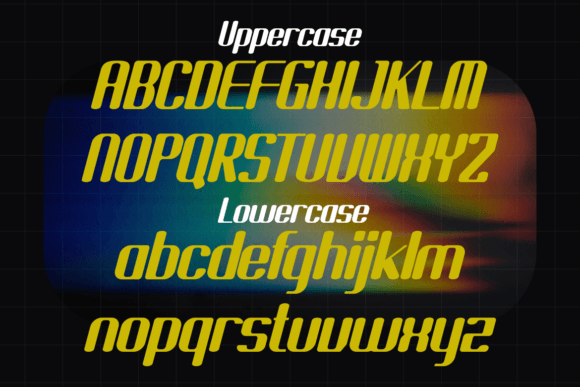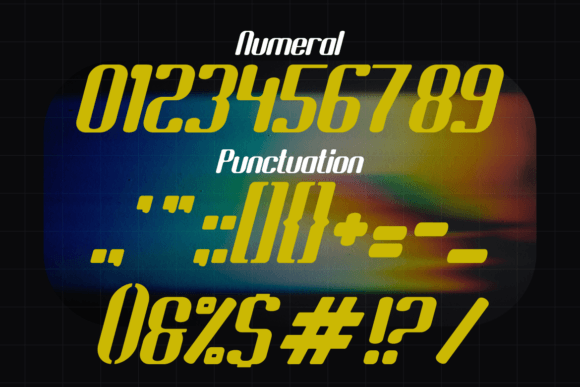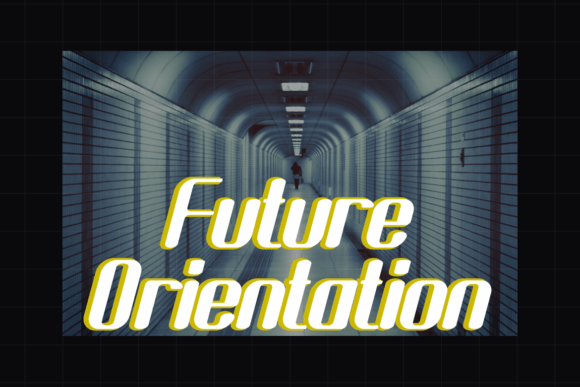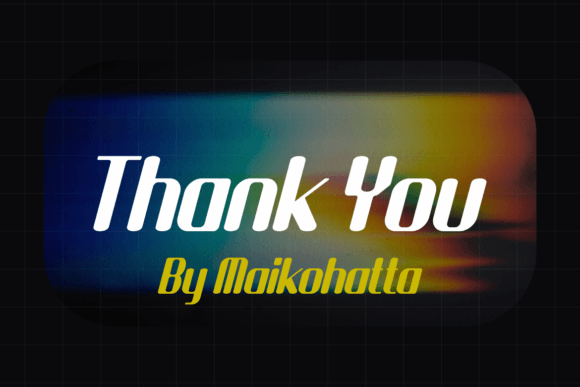
Introduction to Saturas Font
Remember the thrill of designing a website in the early 2000s? The endless nights spent tweaking pixel-perfect layouts, the excitement of incorporating the latest web 2.0 design trends, and the satisfaction of seeing your creation come to life on a dial-up internet connection. For designers who grew up in this era, the Saturas Font is a nostalgic trip back to a time when technology was still in its adolescence.
As a high-quality design resource, the Saturas Font offers a unique opportunity to revisit the futuristic style and digital elements that defined the Y2K aesthetic. With its transparent background and free download, this font is an invaluable addition to any creative project seeking to evoke the spirit of the early 2000s. Whether you’re working on a retro-themed design or simply looking to add some vintage flair to your work, the Saturas Font is an essential tool for designers who want to tap into the nostalgia of a bygone era.
Key Features of Saturas Font
- Unique, hand-crafted font with a transparent background, ideal for backgrounds and overlays.
- Perfect for use in logos, branding materials, and other creative projects where a distinctive font is required.
Honest Review: Saturas Font
I recently had the chance to work with the Saturas Font, and I must say it’s been a game-changer for my creative project. The high quality of this design resource has allowed me to take my work to the next level.
- ✨ The Saturas Font has a clean and modern design that’s perfect for any creative project. It’s incredibly versatile and can be used for a wide range of applications.
- ✨ The transparent background of this font makes it easy to use with any color scheme, allowing for endless design possibilities.
- ⚠️ One thing to note is that the Saturas Font may not be suitable for very small text sizes, as the letters can become difficult to read.
Overall, I’m thoroughly impressed with the Saturas Font. Its high quality and versatility make it a valuable addition to any designer’s toolkit. If you’re looking for a reliable and free design resource, I highly recommend giving the Saturas Font a try.
Common Use Cases for Saturas Font
Saturas Font is ideal for a variety of design projects, including business cards, posters, and presentations. Its high-quality design and transparent background make it a popular choice for designers and non-designers alike.